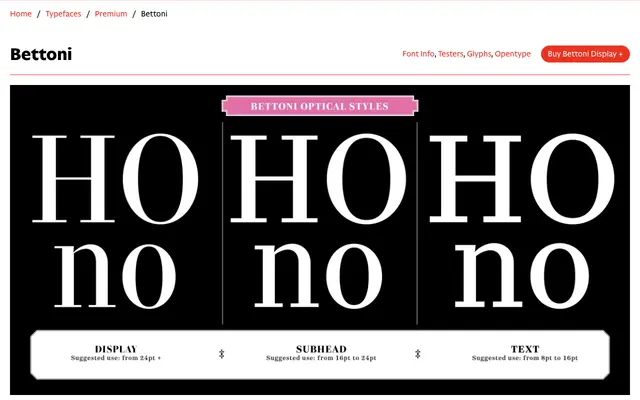
Bettoni
CAST · Riccardo Olocco · 2023
Bettoni specimen from CAST
A Bodonian serif by Riccardo Olocco in three optical sizes, built for demanding publishing work across books, magazines and newspapers.
Designed by Riccardo Olocco and released between 2023 and 2024, Bettoni draws on Giambattista Bodoni's roman types without replicating any single source, instead distilling the vertical axis, high contrast and hairline serifs characteristic of the neoclassical style. Three optical sizes cover the full publishing range: Text widens the letterforms and reduces contrast for use from 6 to 14pt, while Display tightens and refines them for 24pt and above. The family runs to nine weights with oblique companions throughout, and includes small caps, old-style and lining figures, tabular and proportional sets, plus twenty border ornaments traced from original Bodoni and Bettoni fleurons.
Bettoni follows the canonical features of Bodonian 'modern' type: vertical stress, high thick-thin contrast, hairline serifs and small apertures, placing it firmly in the didone subcategory.